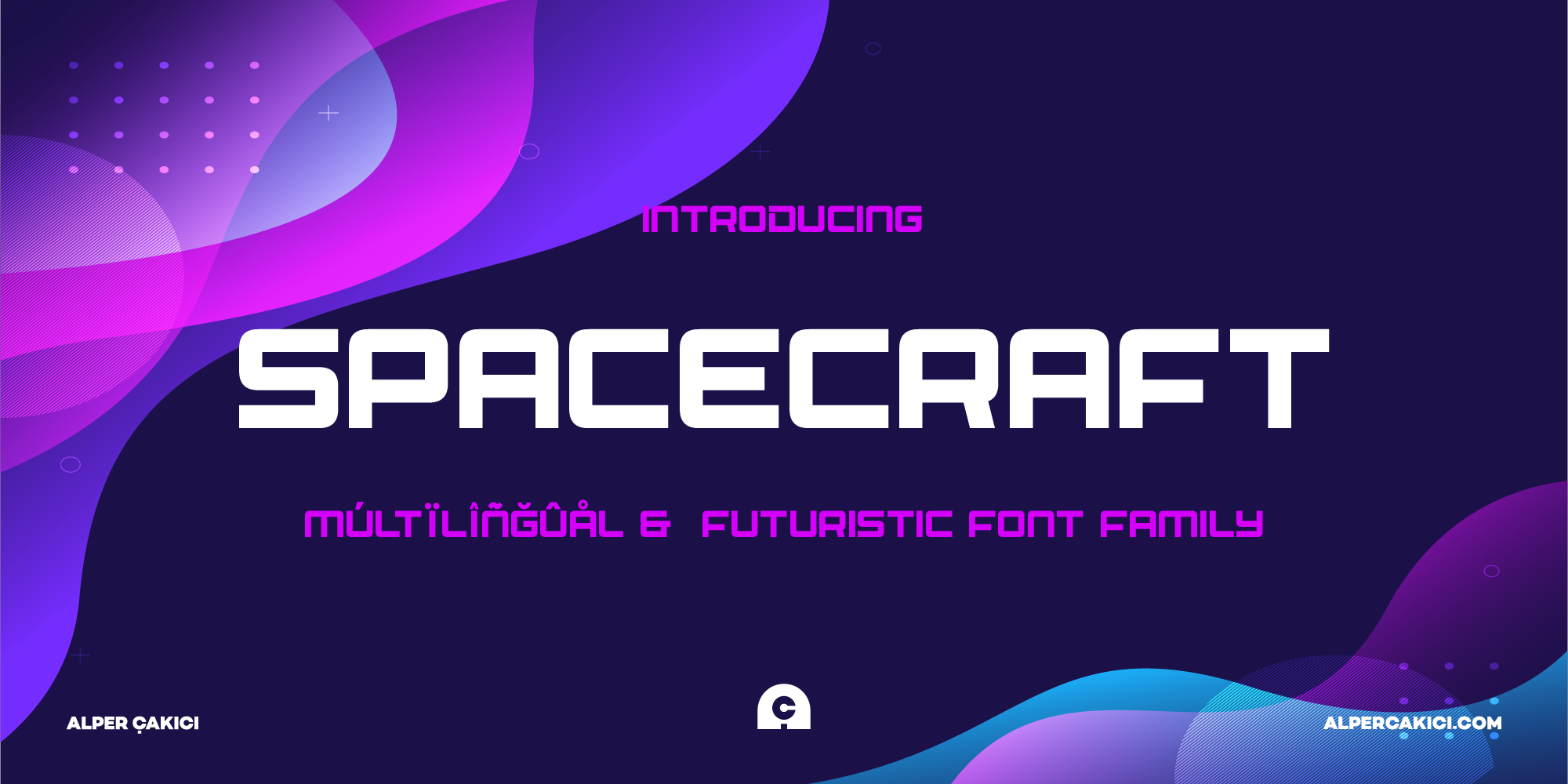
Spacecraft Font is perfect for sci-fi movie titles, space exploration branding, futuristic technology logos, aerospace industry presentations, video game interfaces, science fiction book covers, planetarium displays, space mission graphics, astronaut training materials, cosmic event promotions, and any project that requires otherworldly typography with galactic sophistication.
What makes Spacecraft Font exciting is its extraordinary ability to transport viewers beyond Earth's atmosphere through sleek, aerodynamic letterforms that embody the precision and wonder of space exploration technology. This cosmic typeface features streamlined characteristics with technical precision that evoke the advanced engineering of spacecraft and the infinite possibilities of interstellar travel. The font's galactic character adds instant futuristic credibility and space-age appeal to any design, making it perfect for brands exploring the frontiers of technology and cosmic adventure.
Spacecraft Font comes in multiple font families including Regular, Bold, Light, Condensed, Outline, and Stellar variations, providing designers with comprehensive options to create cosmic compositions and achieve the perfect space-age aesthetic for futuristic design projects.
Whether you're developing aerospace brand identity, creating science fiction entertainment materials, or designing futuristic technology campaigns, Spacecraft Font Free Download offers the perfect solution for projects demanding authentic space exploration character and cosmic innovation. This stellar typeface excels in display applications where futuristic presence is essential, ensuring your designs communicate advanced technology and galactic adventure. The aerodynamic styling and cosmic character of Spacecraft Font make it an indispensable tool for designers who prioritize space exploration, futuristic innovation, and interstellar adventure aesthetics in their typographic selections.